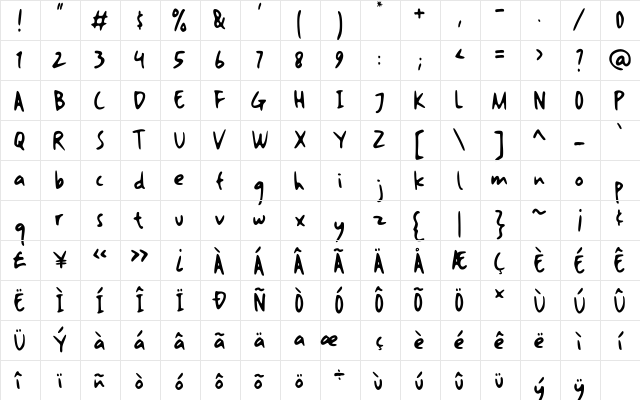
artomoro Regular
Design Context for artomoro Typeface
artomoro is a composed and adaptable typeface that performs quietly and consistently across a wide range of design contexts.